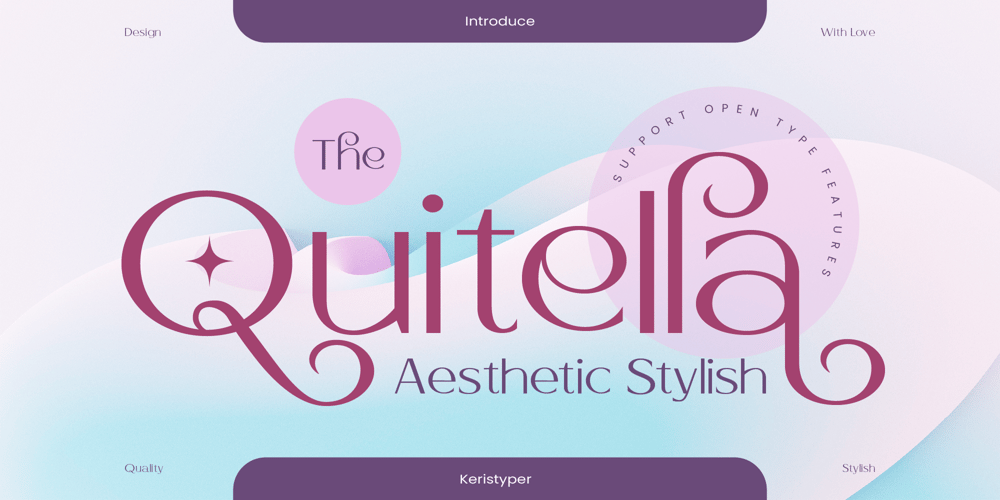
Quitella
Quitella font
Quitella Font Family was designed by Tezar Tantular and published by Keristyper Studio. Quitella contains 1 styles and family package options. The Quitella font is a perfect blend of aesthetics and style, designed to add a touch of elegance to any project. With its clean lines, refined curves, and impeccable craftsmanship, this font brings a sense of sophistication to your designs. Whether used for branding, invitations, packaging, or any other creative endeavor, Quitella will elevate your work to new levels of visual appeal.Featured: Standard, Uppercase & Lowercase Numeral & Punctuation Multilingual : ä ö ü Ä Ö Ü ß ¿ ¡ Alternate & Ligature PUA encoded We recommend programs that support the OpenType feature and the Glyphs panel such as Adobe applications or Corel Draw, so you can use all the variations of the glyphs.Hope you enjoy our fonts!